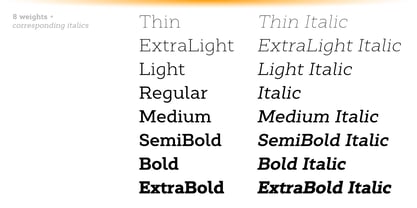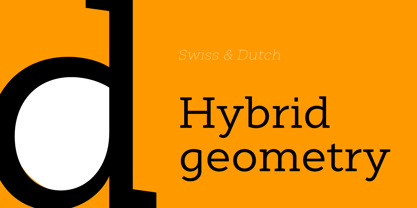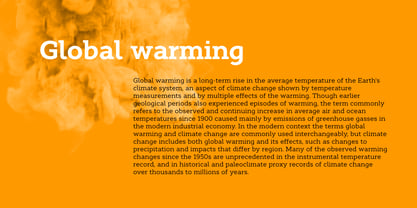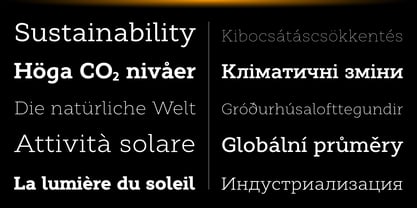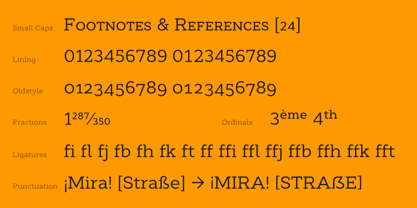
Cyntho Next Slab Font
Cyntho Next Slab Font is perfect for contemporary editorial design, modern magazine layouts, sophisticated brand identities, professional marketing materials, cutting-edge web interfaces, innovative app design, dynamic presentations, sleek packaging solutions, progressive corporate communications, and next-generation digital platforms.
What makes Cyntho Next Slab Font so exciting is its evolutionary design that represents the next generation of slab serif typography, combining traditional authority with futuristic innovation to create exceptional visual impact. This groundbreaking typeface embodies typographic evolution and contemporary sophistication, delivering typography that bridges classic reliability with cutting-edge aesthetics.
The Cyntho Next Slab Font family includes light, regular, medium, bold, and black weights, complete with innovative design features, contemporary styling options, and evolutionary characteristics that provide designers with comprehensive tools for creating distinctive and memorable typography that defines the future of slab serif design.
Evolve your typography with Cyntho Next Slab Font Free Download, a revolutionarily crafted slab serif typeface that brings next-generation design thinking and contemporary sophistication to modern projects. This exceptional font embodies the perfect fusion of traditional slab authority and innovative design evolution, making it the definitive choice for brands that represent progress and typographic advancement.
The innovatively crafted letterforms of Cyntho Next Slab Font showcase evolutionary elegance with contemporary character that creates instant recognition of progressive quality and design innovation. Each character displays meticulous attention to maintaining the authoritative presence that defines slab serif tradition while embracing the innovative spirit that drives typographic evolution. The font's contemporary construction and progressive spacing contribute to its futuristic appearance and innovative appeal.
Forward-thinking brands and design-conscious organizations consistently choose Cyntho Next Slab Font for projects requiring contemporary authority and evolutionary sophistication. The comprehensive character set includes uppercase and lowercase letters, numerals, extensive punctuation, international accents, and innovative elements that provide complete support for progressive branding applications and evolutionary design compositions.
The revolutionary versatility of Cyntho Next Slab Font ensures exceptional performance across both traditional print and modern digital platforms. Whether developing next-generation brand identities, creating progressive marketing campaigns, or designing innovative editorial layouts, this remarkable typeface delivers consistent evolution that resonates with audiences seeking contemporary authority and typographic innovation.
Transform your most progressive projects with Cyntho Next Slab Font Free Download. This extraordinary slab serif typeface brings evolutionary sophistication and contemporary authority to typography, making it the essential choice for designers who create experiences that define the future of slab serif design and contemporary typographic excellence.